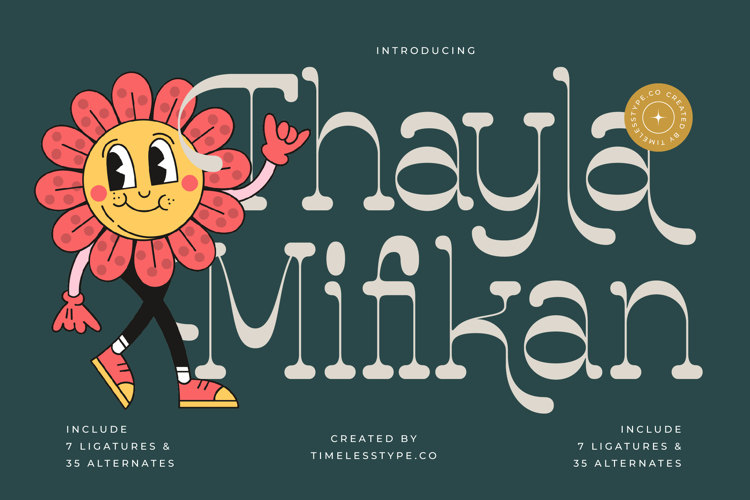
Thayla Mifikan - Retro Serif Display
The Thayla Mifkan Typeface is a modern retro serif font with a unique, decorative, and playful style. Featuring 7 ligatures and 35 stylistic alternates, this font brings expressive, artistic typography full of visual variety. Its slender letterforms with rounded “dot terminals” evoke a groovy retro vibe fused with modern minimalism, making it an excellent choice for designs that aim to appear cheerful, creative, and full of character.
This typeface is highly effective in editorial design, including lifestyle magazines, creative zines, retro posters, and book covers. The available ligatures and alternates allow for dynamic and fun typographic variations.
In branding and packaging, Thayla Mifkan is ideal for food & beverage products, creative fashion brands, indie cosmetics, and youth merchandise. Its quirky retro-modern aesthetic creates a visual identity that feels fun, approachable, and memorable.
For entertainment and promotional design, this font works perfectly on music concert posters, festival campaigns, creative advertising, and album covers. Its decorative character enhances visual storytelling with a unique retro-contemporary style.
In the field of digital design, Thayla Mifkan performs seamlessly across social media content, website branding, digital advertising, and motion graphics. With multilingual support, it also adapts easily to international projects.
In short, Thayla Mifkan Typeface is a retro serif display font designed to deliver joy, playful energy, and decorative artistic flair. Perfect for editorial, branding, packaging, entertainment, advertising, and digital campaigns, this font turns typography into a unique, stylish, and character-rich design element.